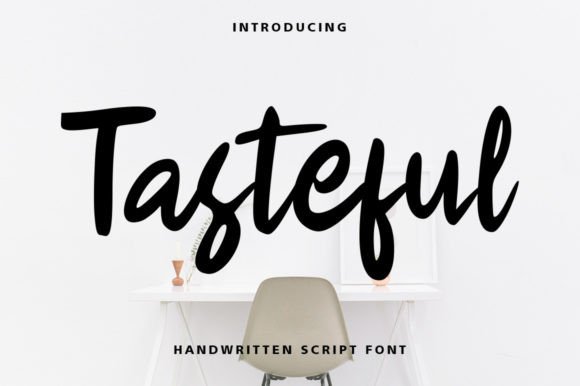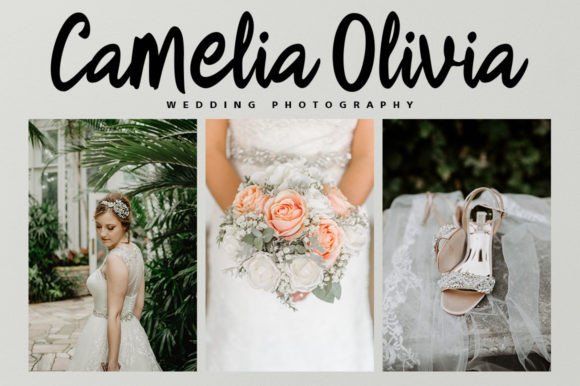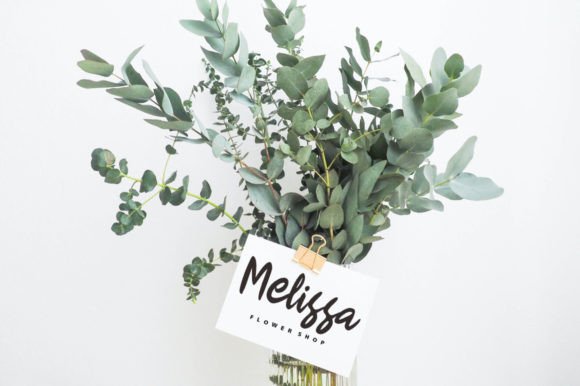
About Tasteful Font
Tasteful is a sweet and beautiful handwritten font. Featuring characters dancing along a baseline, this font will add a splash of luxury to any design project you want to create!
Tasteful is a dazzling script font. Add this romantic and lovely-looking font to any of your favorite love letters, wedding invitations, or design ideas, and you’ll be surprised at the results.